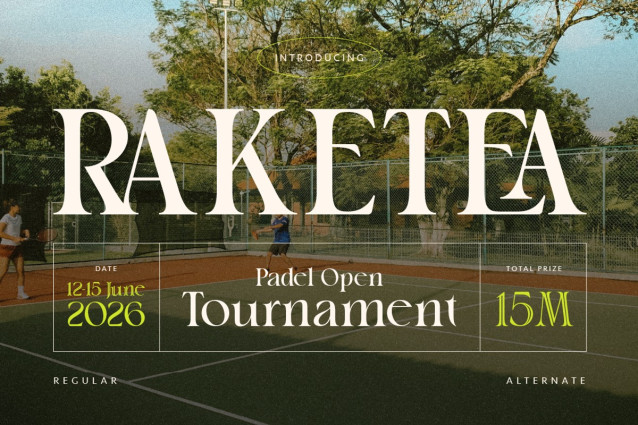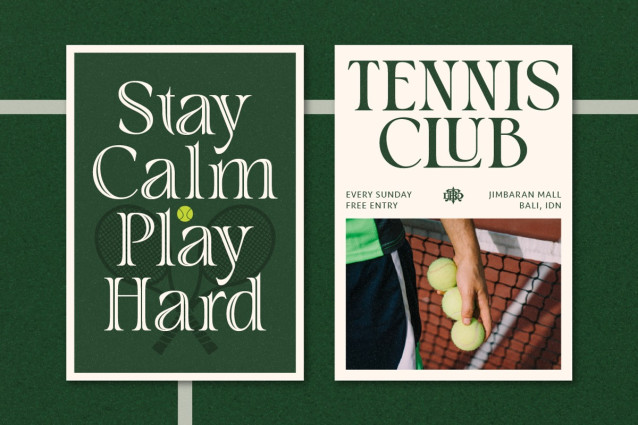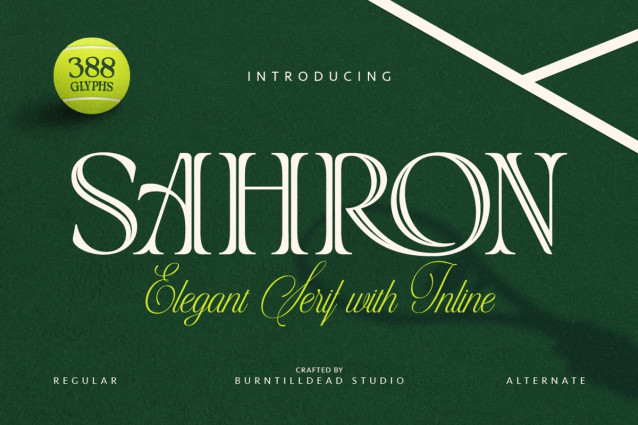
Sahron Font
Sahron Font is an elegant serif font with a distinctive inline detail that adds character and sophistication. Designed to feel modern yet timeless, Sahron brings a refined look while staying bold and expressive.With clean letterforms, smooth curves, alternates, and stylish ligatures, this font works beautifully for editorial layouts, sports branding, luxury logos, event posters, and premium marketing designs.Sahron also supports multilingual characters, making it flexible for both local and international projects.